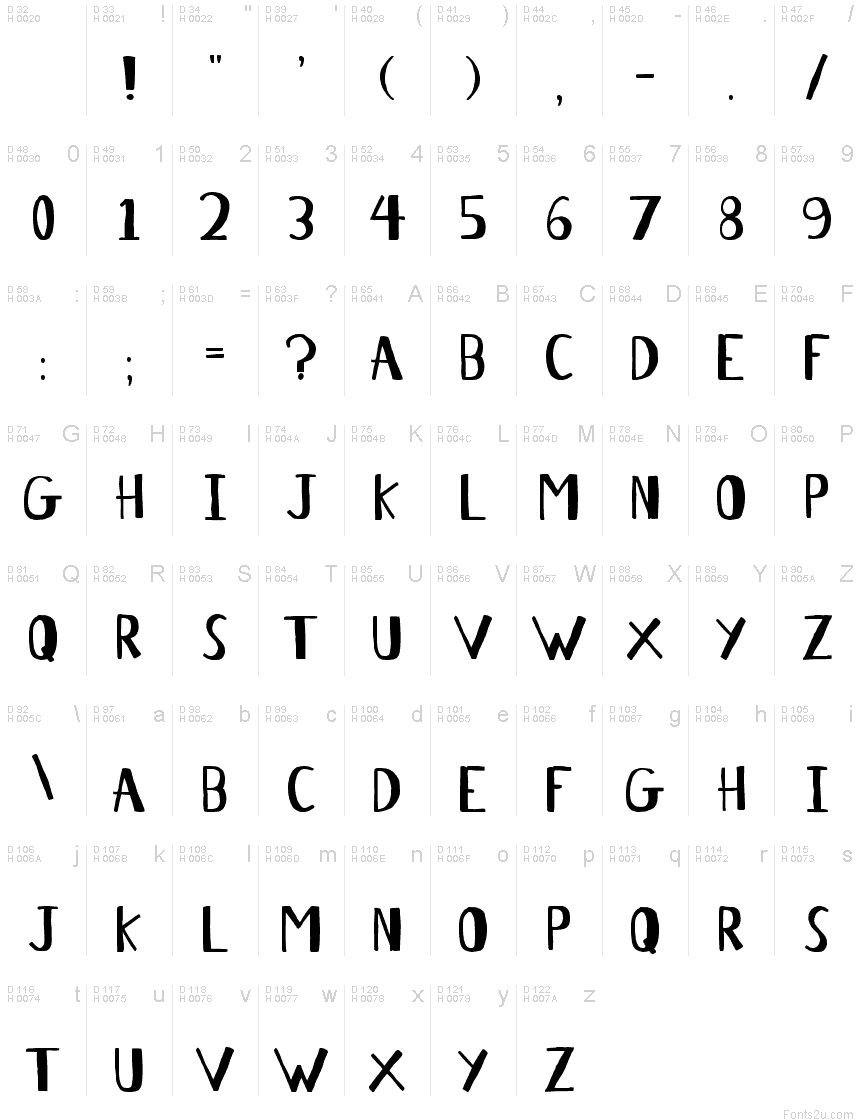
Antelope H
Antelope H font by Tom 7 is a free decorative display typeface with a lanky, hand-drawn swagger. The letters look like they’ve been brushed in thick, inky strokes—tall, slightly wobbly, and delightfully uneven—so every word feels a bit restless and alive. Narrow spacing and stretched forms keep lines compact while still feeling loose and sketchy, giving your layouts a raw, human energy that’s hard to fake.
Using Antelope H, you can bring this offbeat character to gig posters, indie zines, craft packaging, YouTube thumbnails, book covers, and playful branding that needs a scruffy edge. This free font shines when you set it large and embrace the texture; pair it with a clean geometric sans for body text to let its rough, drawn-by-hand personality really stand out.